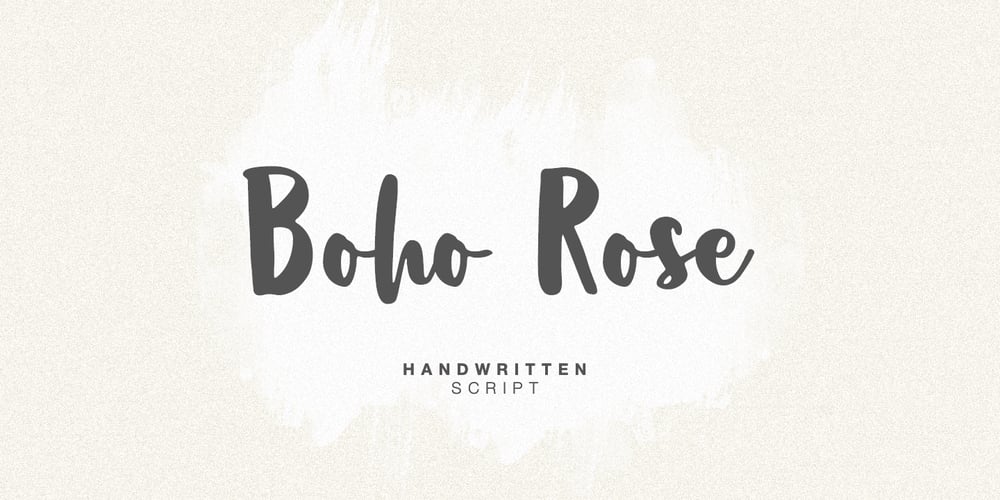
Boho Rose
Boho Rose font
Boho Rose Font Family was designed by Dmitrii Chirkov and published by Supfonts. Boho Rose contains 1 styles and family package options. Boho Rose is a new font, cute, elegant and handwritten. It is easy to read and looks like a hand-made writing. Boho Rose is great for decorating menus, postcards, cards or signs, and has correct kerning and letter spacing. It is prepared for serious work and for ordinary home use. Test it out below to see how it could look for your next project! Includes: Uppercase and lowercase Numbers and punctuation Foreign language support Ligatures Check out my blog: https://www.instagram.com/zloillev pinterest.com/dmitriychirkov7 Enjoy